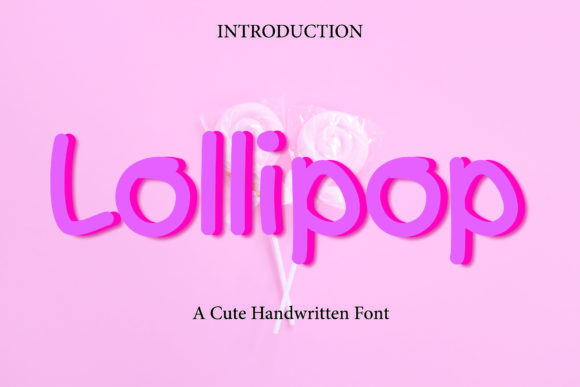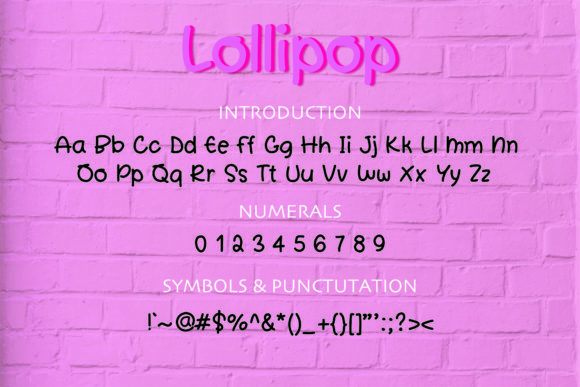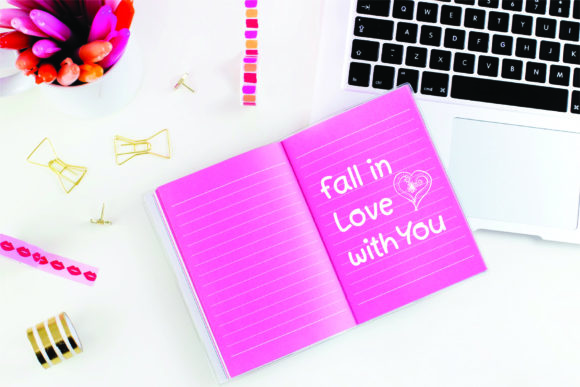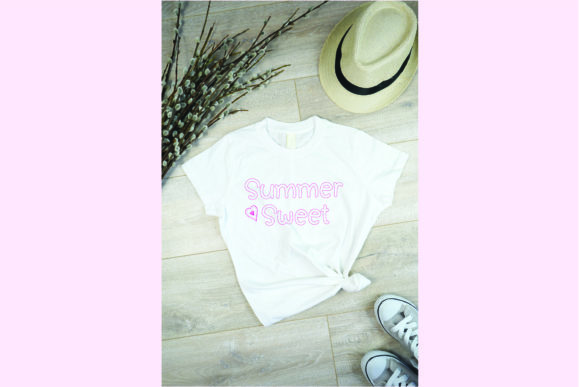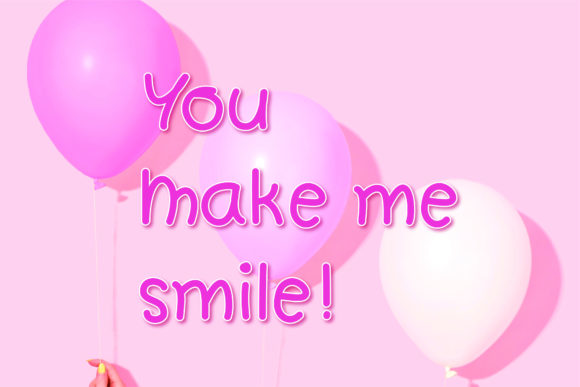
Lollipop Font
About Lollipop Font
Lollipop is a cute and cheery handwritten font. Suitable to a wide variety of designs due to its neat and simple style, this font has the potential to become your favorite go-to font, no matter the occasion!